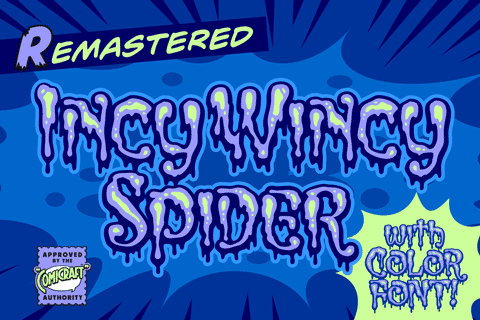
Incy Wincy Spider
Incy Wincy Spider font
Spun with webs in mind for the letters pages of the SPIDER-MAN books, INCYWINCYSPIDER is probably one of the World's CREEPIEST Comic Book Fonts. Handle with care - some letters may stick together!